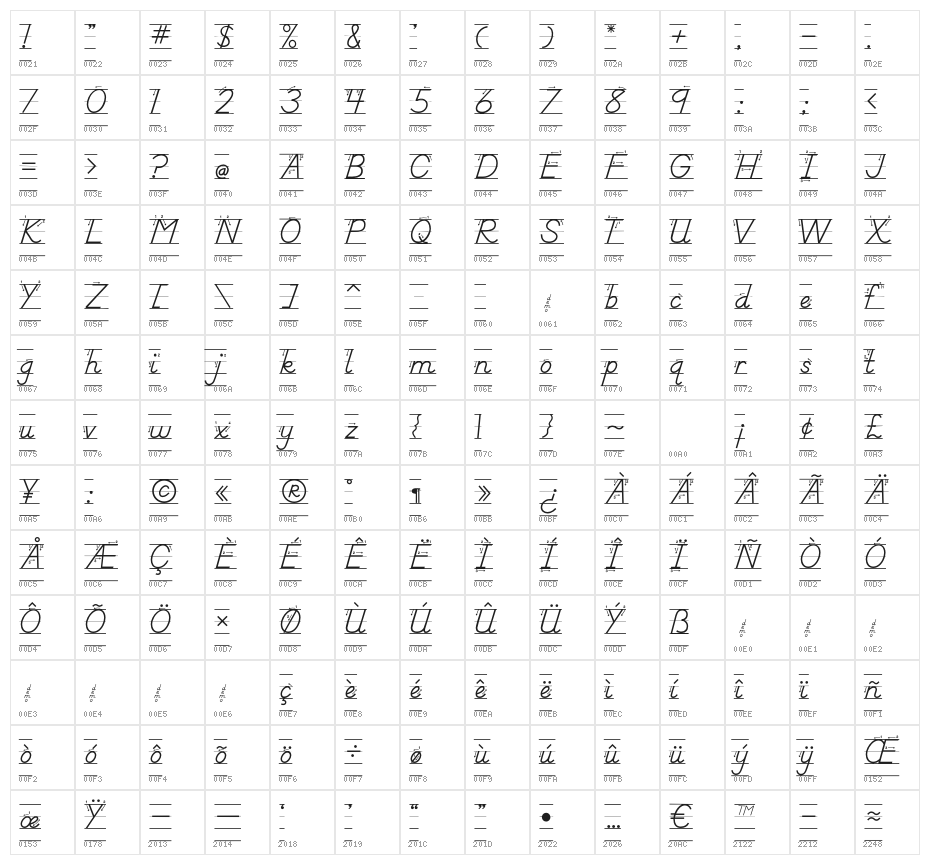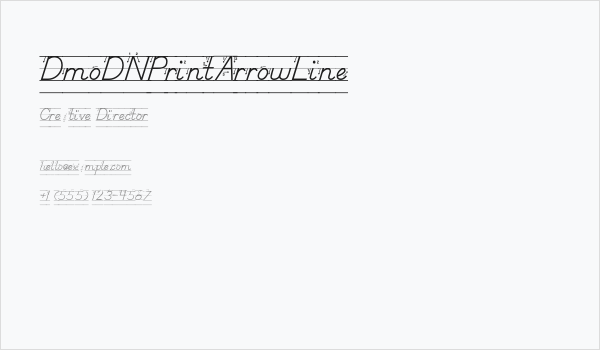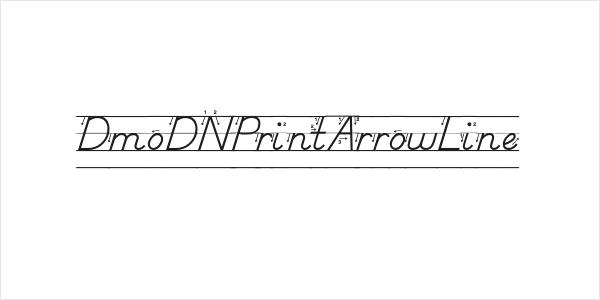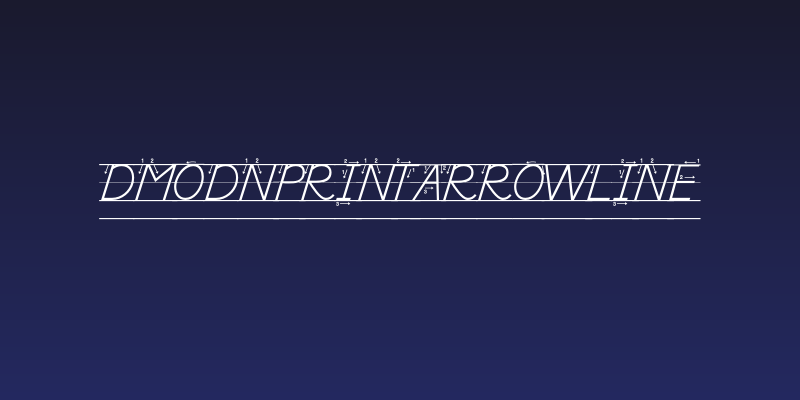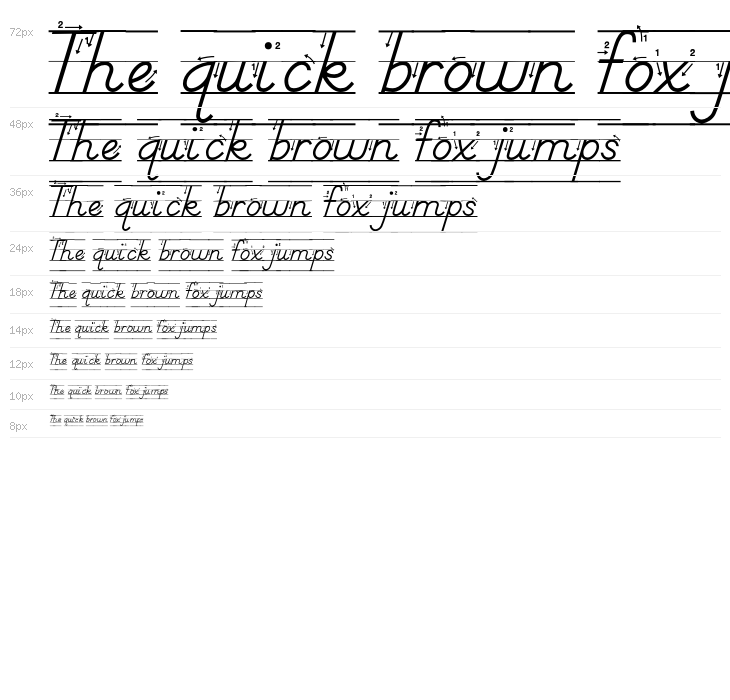
DmoDNPrintArrowLine Font
| 分类 | Handwritten |
| 斜体 | Yes |
| 整体风格 | Elegant |
| 使用场景 | Headlines, Invitations, Branding |
| 推荐项目 | Ideal for wedding invitations, elegant branding, personal stationery, and artistic projects requiring a touch of sophistication. |